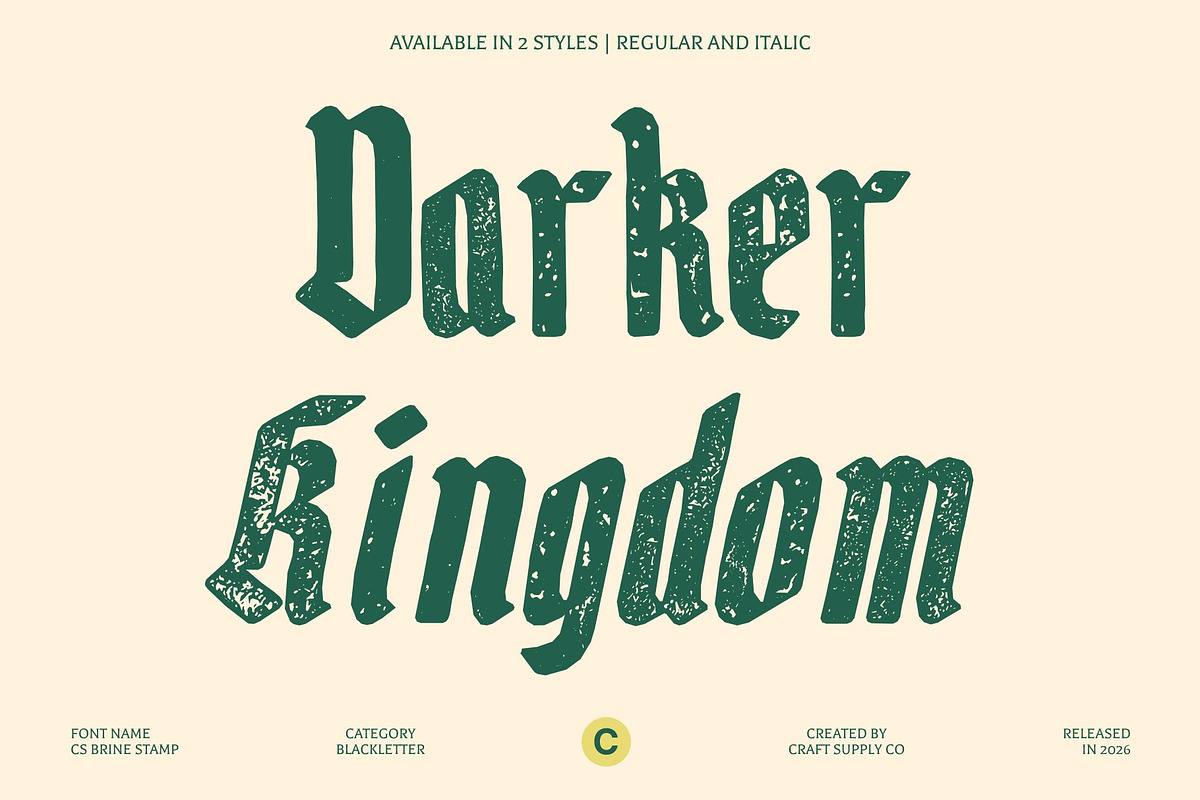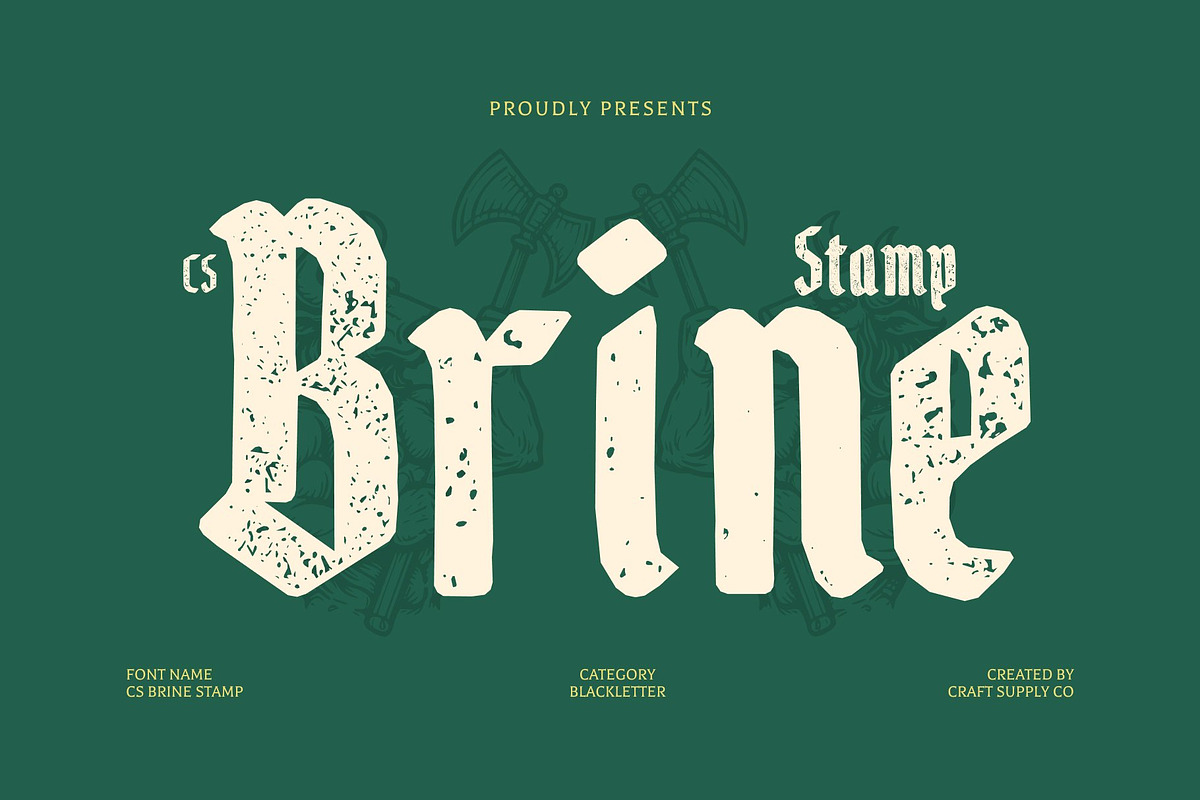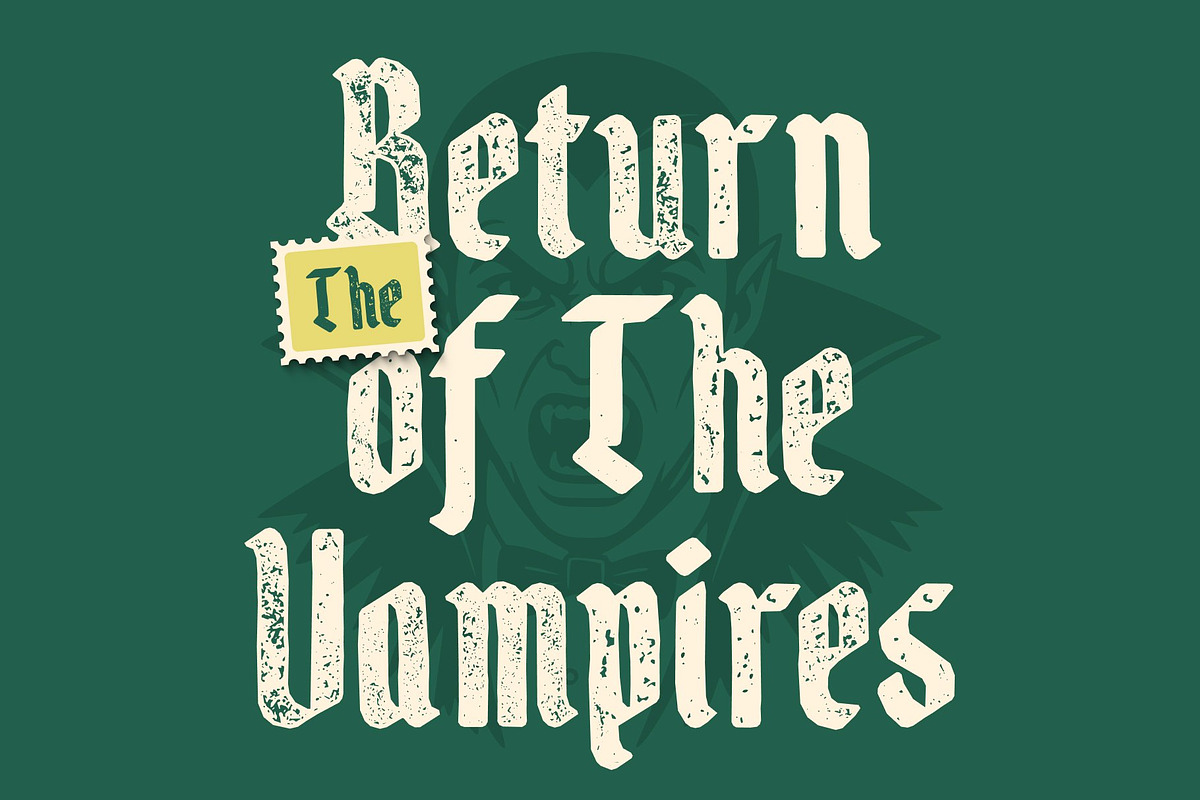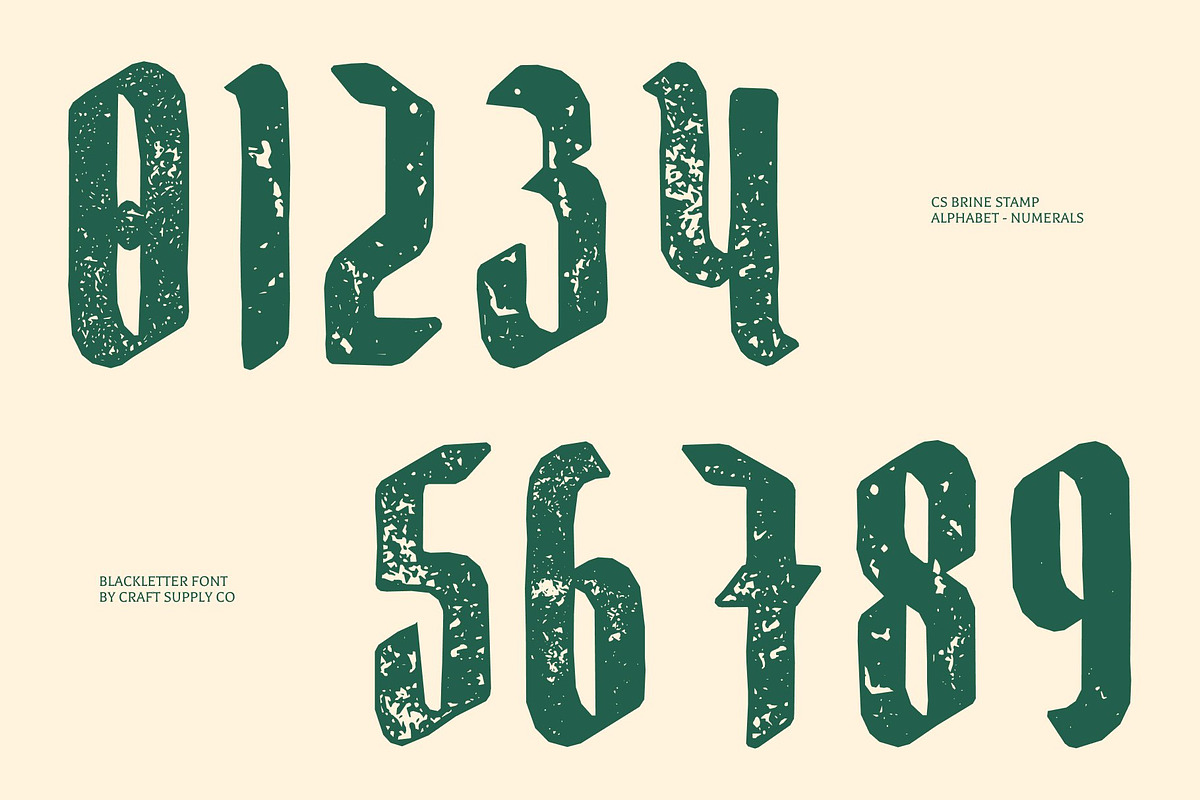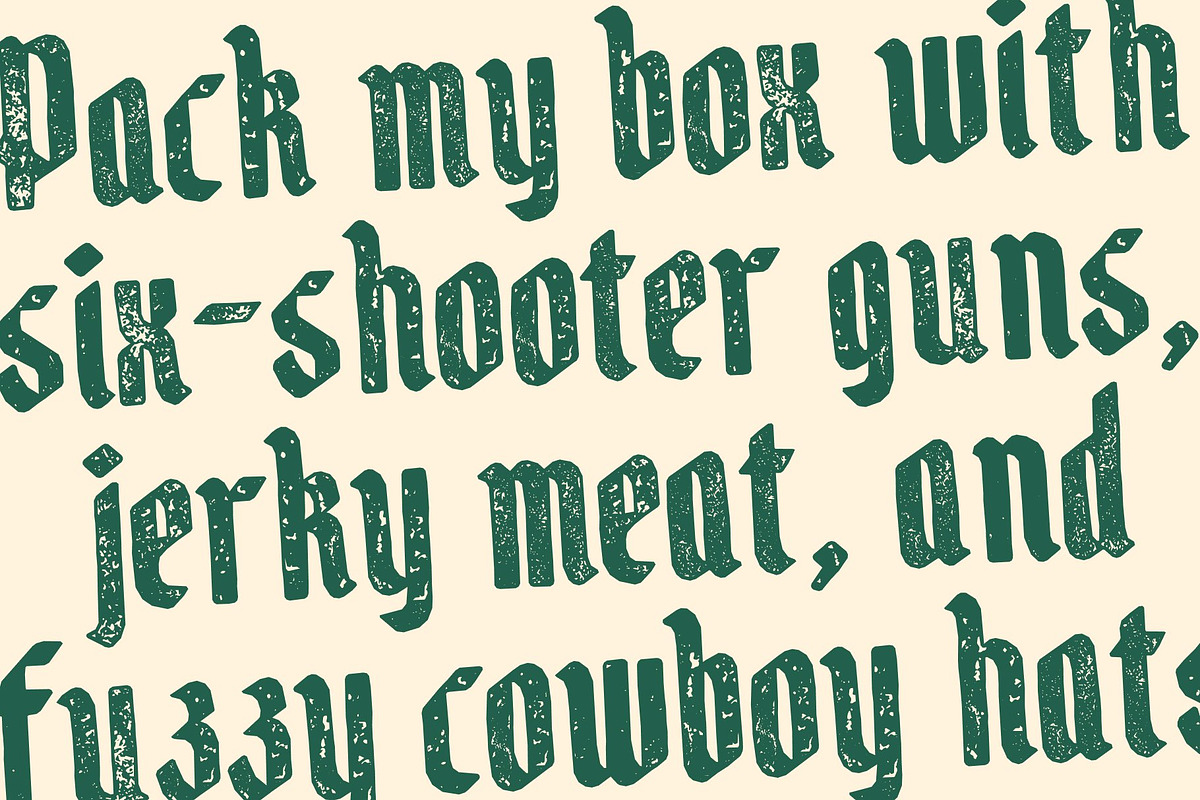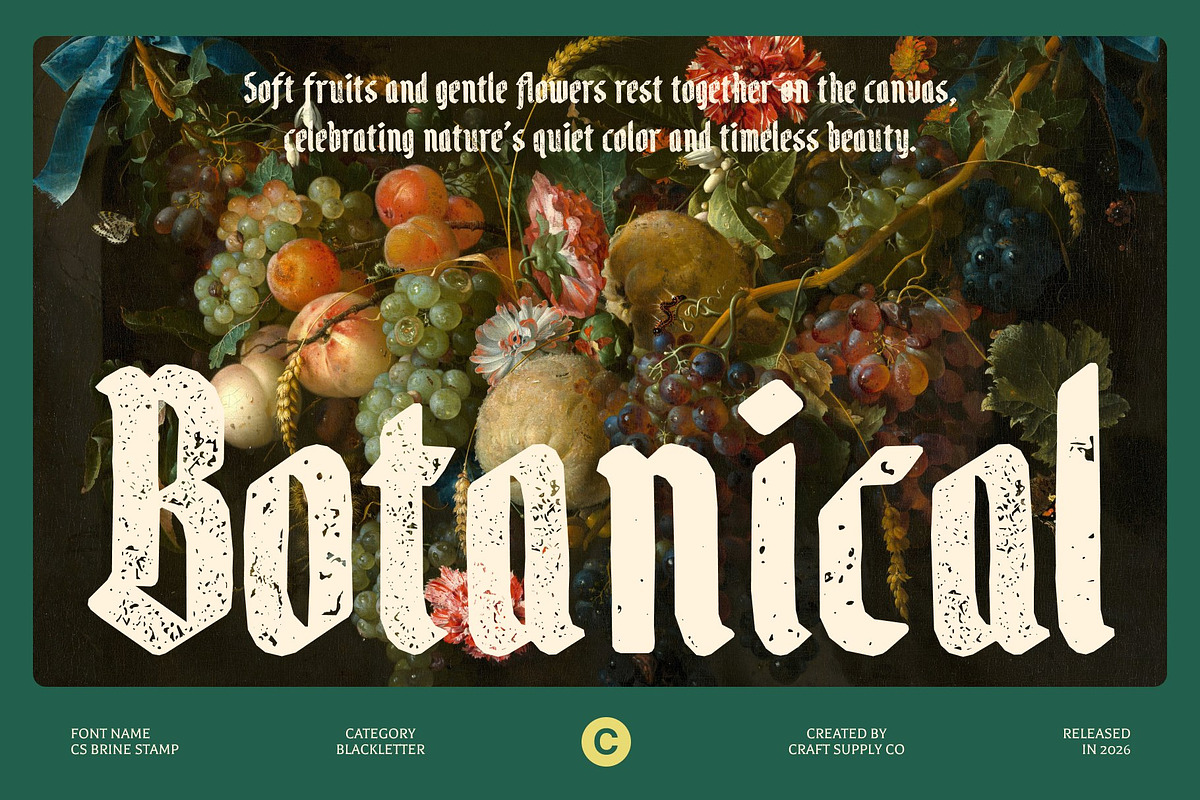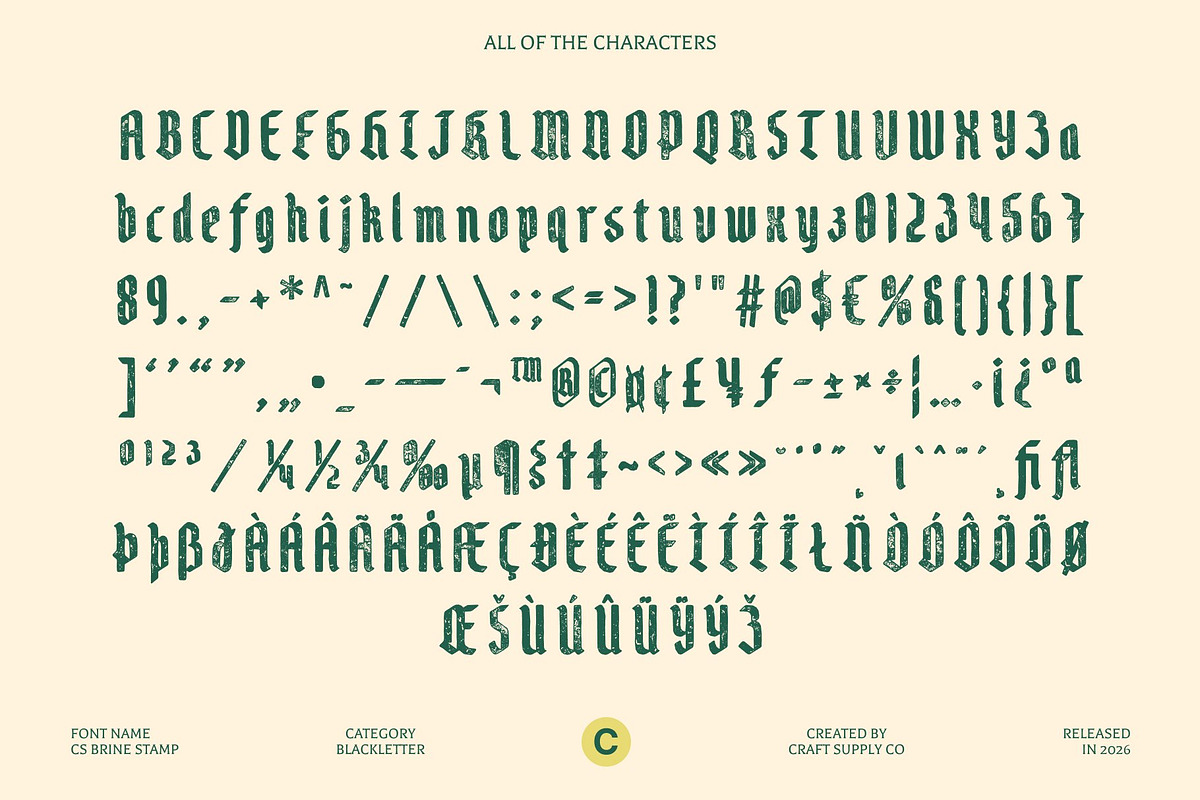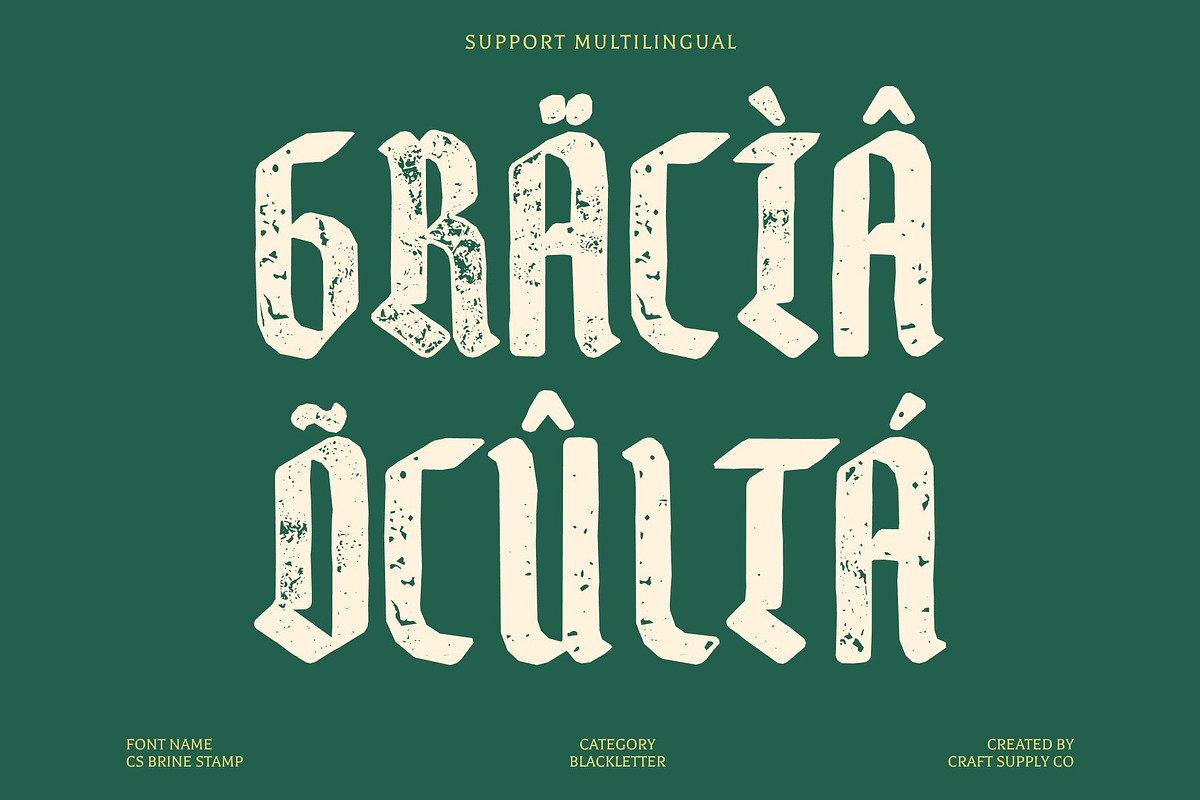
CS Brine Stamp
CS Brine Stamp – Blackletter Font with Historic Texture
Intricately Crafted Blackletter Display Font This is a striking blackletter display font that captivates with richly detailed letterforms and bold, sharp structures. Inspired by traditional blackletter typography, each character reflects the craftsmanship and artistry of historical lettering. The addition of a stamped texture introduces subtle imperfections and depth, enhancing the vintage character and giving the font a tactile, handcrafted appearance.
Classic and Dramatic Aesthetic This font carries a powerful classic and dramatic presence, evoking the visual language of medieval manuscripts and historic calligraphy. Its bold strokes command attention, while intricate details create an elegant and ornamental impression. The textured stamp effect reinforces its historical atmosphere, making the typeface feel authentic, aged, and full of character.
Heritage Style with Distinctive Personality Balancing bold structure with decorative refinement, brings a sense of heritage, tradition, and artistic sophistication. The combination of sharp blackletter forms and textured surfaces creates a visually rich typeface that stands out while maintaining strong readability in display settings.
Versatile for Vintage and Cultural Designs This is ideal for projects that celebrate tradition and visual heritage, including formal invitations, gothic-inspired posters, heritage branding, editorial titles, and themed event graphics. Whether used for vintage branding, cultural identity, or dramatic visual compositions, this font delivers a timeless aesthetic with textured depth and historical elegance.